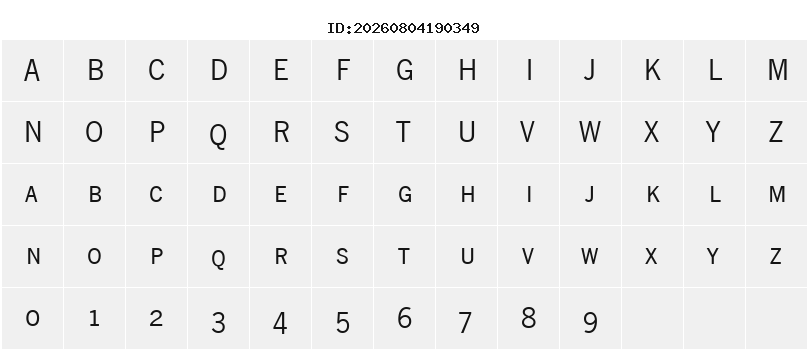
• Font Name: NewsGotSCTReg
• Full Font Name: NewsGotSCTReg
About NewsGotSCTReg.ttf
NewsGotSCTReg.ttf is a modern, elegant sans-serif font designed for ultimate readability and visual harmony. Perfect for branding, headlines, web design, and print materials.